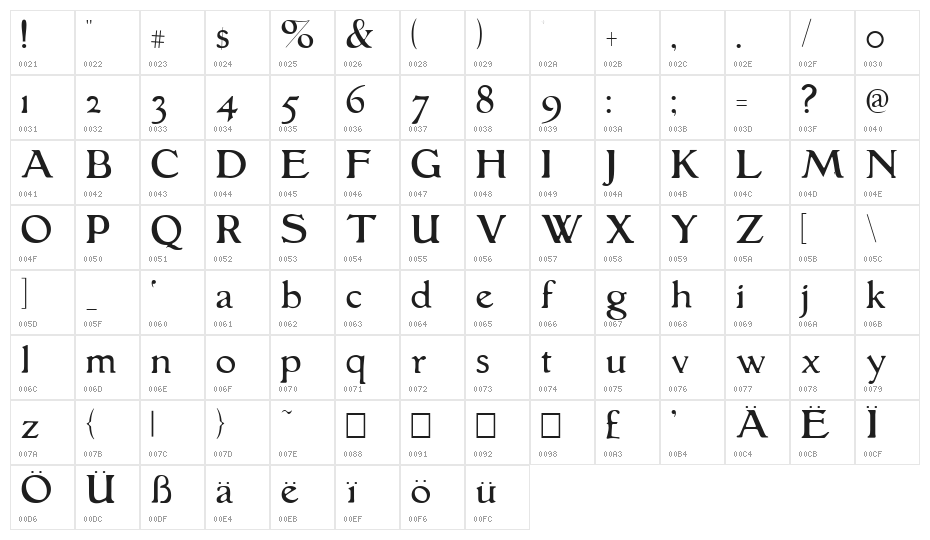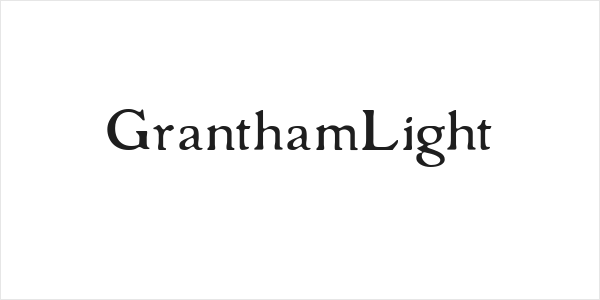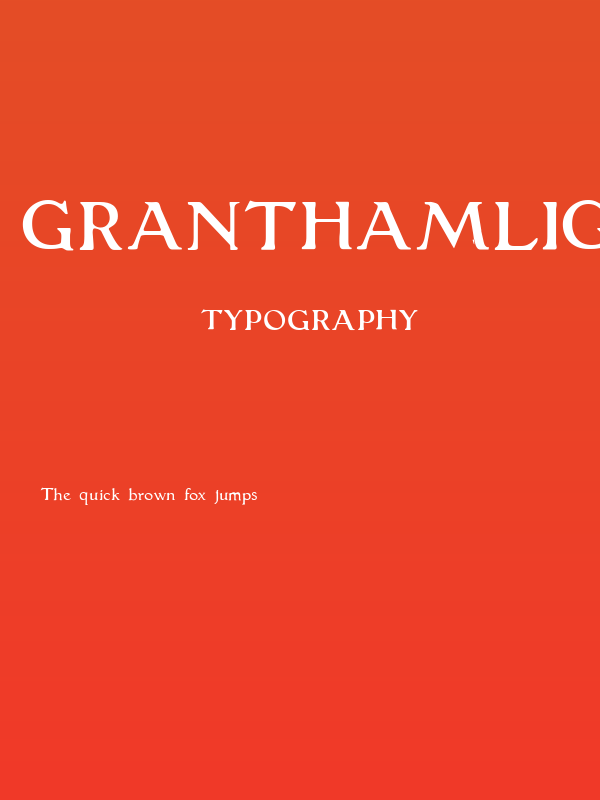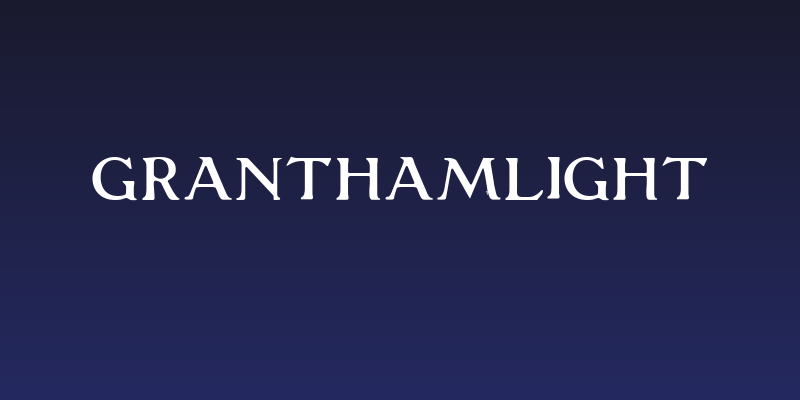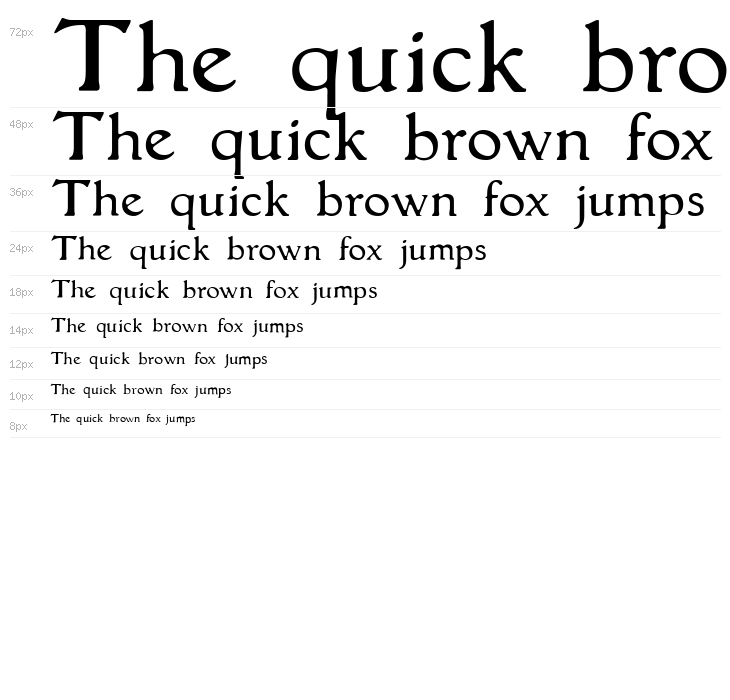
GranthamLight Font
GranthamLight Description
This font features a classic serif style with elegant, flowing lines and a slightly calligraphic touch. The uppercase letters are bold and commanding, while the lowercase letters maintain a graceful and sophisticated appearance. The numerals are distinct and well-proportioned, complementing the overall aesthetic. Special characters are thoughtfully designed, adding to the font's versatility. The strokes vary in thickness, providing a medium contrast that enhances readability while maintaining a decorative flair. This font is suitable for projects that require a touch of elegance and tradition.
Overall StyleClassic
Proposed ProjectsIdeal for book covers, formal invitations, branding, and editorial design.